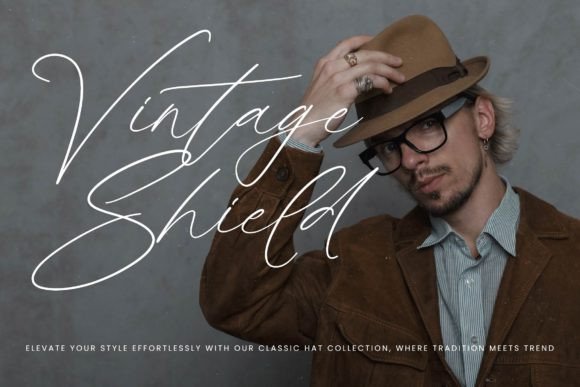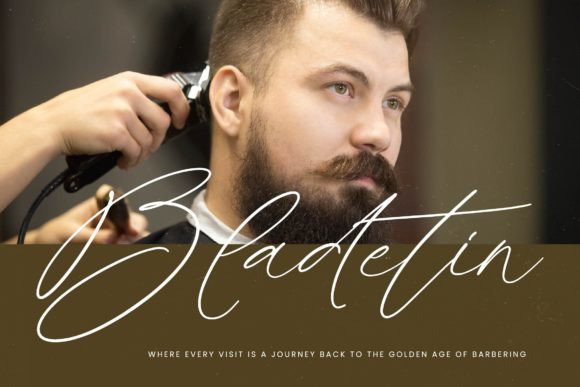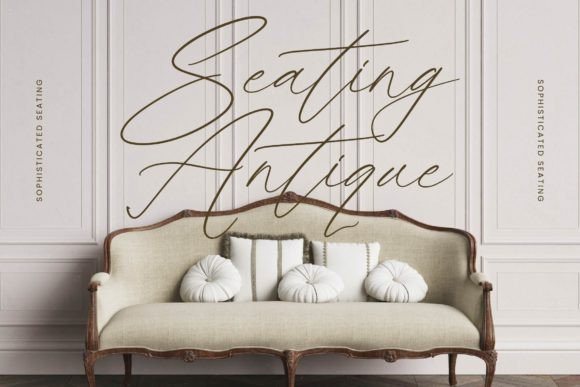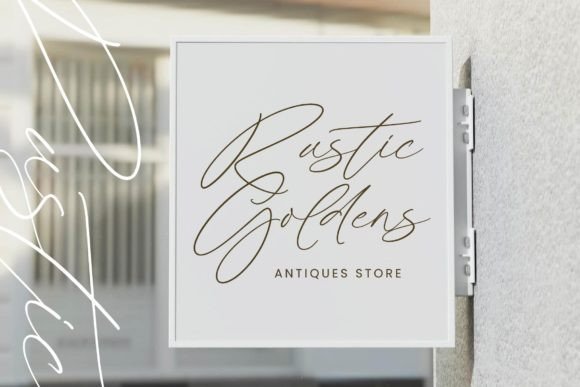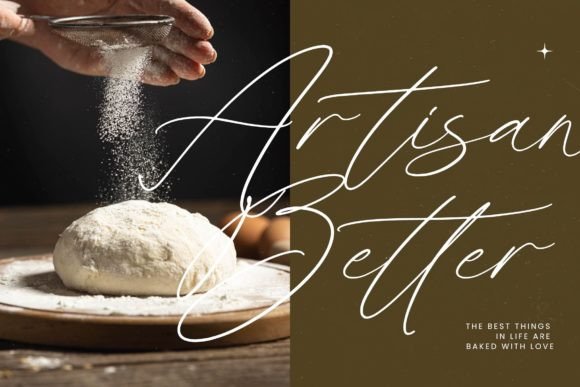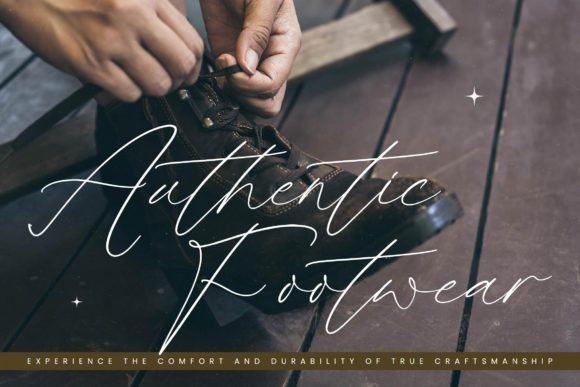
Gothical Statues Font: Elevate Your Designs with a Touch of Luxury
Are you looking for a font that exudes elegance and sophistication? Look no further than the Gothical Statues font, a modern stylish script from Letterena. This luxury script font is perfect for designers and crafters who want to add a touch of glamour to their projects. In this article, we’ll explore the features and benefits of the Gothical Statues font and how it can elevate your designs.
What is Gothical Statues Font?
Gothical Statues is a luxury script font designed by Letterena, a renowned font foundry. This font is inspired by the grandeur of gothic architecture and the elegance of modern calligraphy. The result is a unique and stylish script font that is perfect for high-end designs.
Key Features of Gothical Statues Font
- Modern Stylish Script: Gothical Statues is a modern script font with a stylish twist. Its elegant lines and curves make it perfect for luxury designs.
- Luxury and Elegant: This font is designed to add a touch of luxury to your designs. Its sophisticated look and feel make it perfect for high-end projects.
- Versatile: Gothical Statues is a versatile font that can be used for a wide range of projects, from logos and branding to packaging and advertising.
- Easy to Read: Despite its elegant look, Gothical Statues is easy to read, making it perfect for body text and headlines.
Use Cases for Gothical Statues Font
Gothical Statues is a versatile font that can be used for a wide range of projects, including:
- Logos and Branding: Create a luxurious logo or brand identity with Gothical Statues.
- Homeware Designs: Add a touch of elegance to your homeware designs, such as stationery, invitations, and wall art.
- Product Packaging: Elevate your product packaging with a luxurious font that reflects your brand’s high-end quality.
- Mugs and Apparel: Create stylish mugs, t-shirts, and other apparel with Gothical Statues.
- Posters and Quotes: Add a touch of sophistication to your posters and quotes with this elegant font.
Benefits of Using Gothical Statues Font
Using Gothical Statues font can bring numerous benefits to your designs, including:
- Instant Luxury Look: Add a touch of luxury to your designs with a font that exudes elegance and sophistication.
- Versatility: Use Gothical Statues for a wide range of projects, from logos to packaging and advertising.
- Easy to Read: Despite its elegant look, Gothical Statues is easy to read, making it perfect for body text and headlines.
- Unique and Stylish: Stand out from the crowd with a unique and stylish font that reflects your brand’s personality.
Tips for Using Gothical Statues Font
Here are some tips for using Gothical Statues font effectively:
- Pair with Neutral Colors: Pair Gothical Statues with neutral colors, such as black, white, or gray, to create a sophisticated look.
- Use for Headlines and Titles: Use Gothical Statues for headlines and titles to add a touch of luxury to your designs.
- Experiment with Ligatures: Experiment with ligatures to create a unique and stylish look.
- Use for Packaging and Advertising: Use Gothical Statues for packaging and advertising to create a high-end look that reflects your brand’s quality.
Gothical Statues font is a luxury script font that can elevate your designs with a touch of elegance and sophistication. Its modern stylish script, versatility, and ease of use make it perfect for a wide range of projects, from logos and branding to packaging and advertising. By following the tips outlined in this article, you can create stunning designs that reflect your brand’s high-end quality.